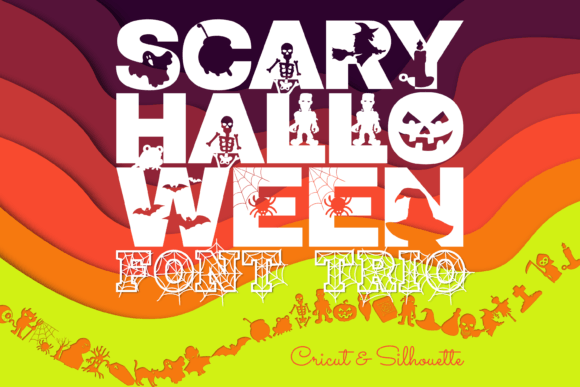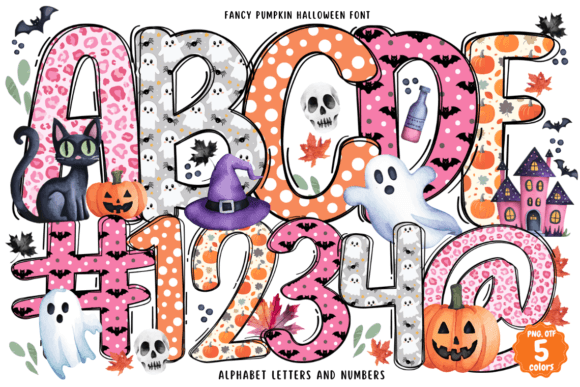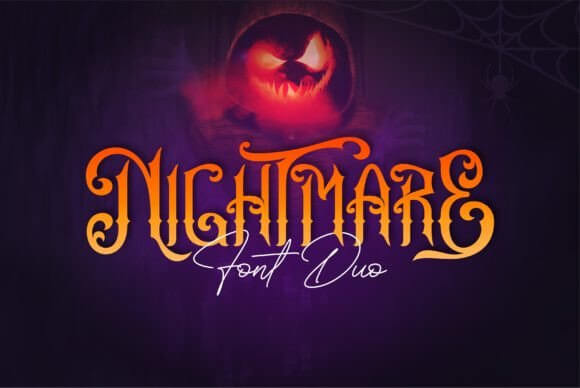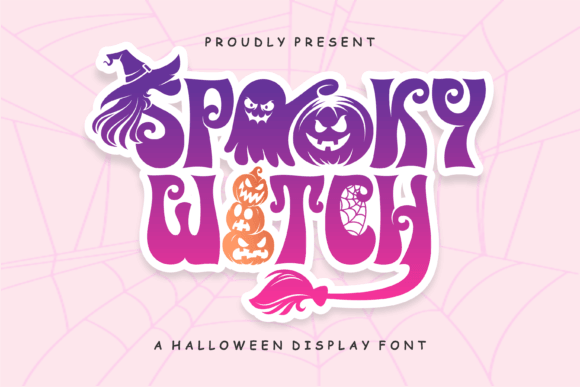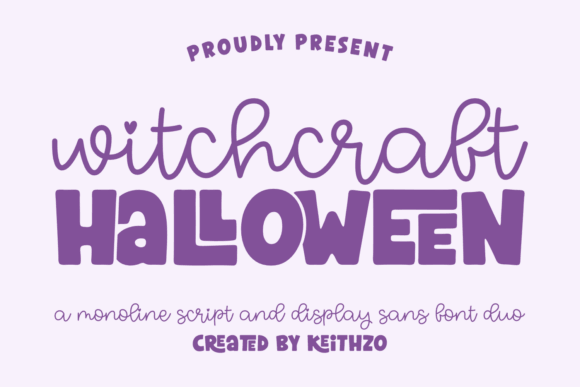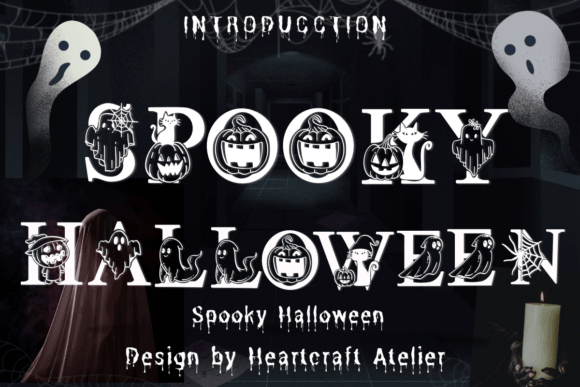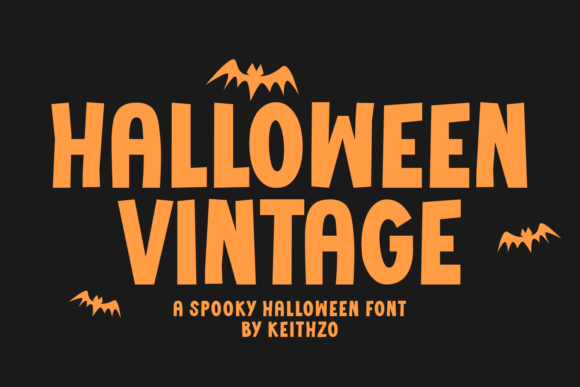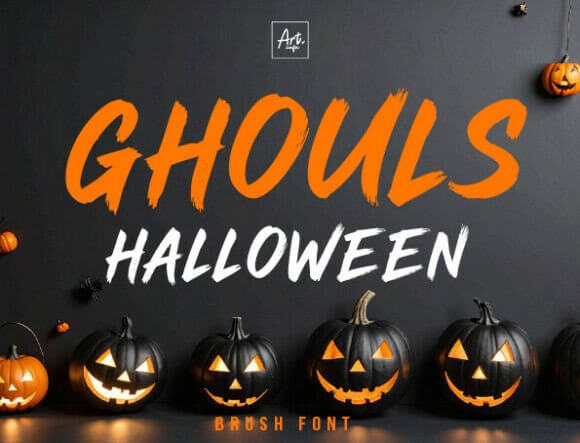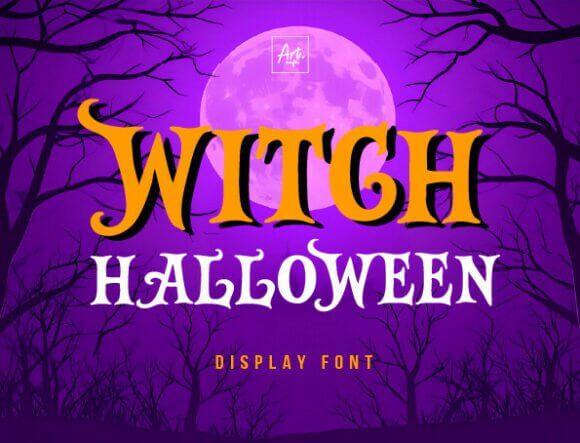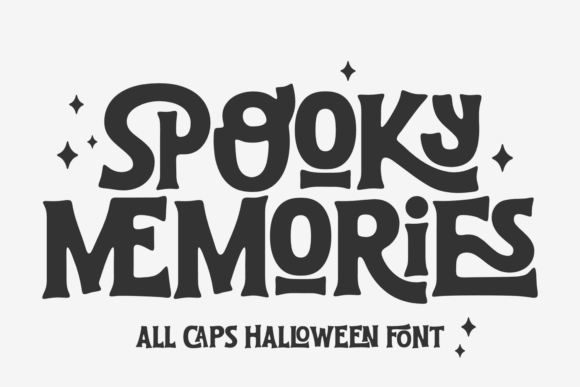
Picking halloween fonts sounds easy until every design starts looking like the same tired dripping headline. We pulled together 20 options that cover cute ghost lettering, rough vintage horror, witchy scripts, and bold display styles, because a pumpkin patch flyer should not carry the same mood as a haunted house poster. Good type changes the whole vibe fast. Faster than color tweaks, faster than clip art, and honestly with less fuss.
In this list, we point out where each font works best, from stickers and mugs to event branding, packaging, social graphics, and classroom printables. If you need halloween fonts alphabet ideas, spooky handwritten titles, retro horror typography, or halloween fonts free to test in craft projects, you’ll find a solid mix here. Some feel playful. Some feel cursed. That’s the fun part.
Scary Halloween Trio Display Fonts
Scary Halloween Trio gives you three coordinated looks, which is gold when one headline needs depth without turning into a design mess. We like it for Halloween poster design, merch drops, and loud promo graphics because it feels theatrical, sharp, and a bit unhinged in the best way.
Best Fits For This Font
- Haunted House Posters – Build huge titles that still read from a distance.
- Horror Merch Bundles – Add layered drama to tees, totes, and stickers.
- October Sale Headers – Make seasonal promos hit harder, fast.
- Costume Event Branding – Tie tickets, banners, and posts into one look.
Halloween Pumpkin Playful Lettering Font
This one leans sweet, round, and cheerful, so it fits projects that want autumn fun without full horror-movie chaos. For pumpkin patch branding, kid-friendly labels, or craft fair signs, it feels warm and readable . . . which matters more than people admit.
Great Projects For This Style
- Pumpkin Patch Logos – Create a friendly look that families trust.
- Fall Market Stickers – Add charm to jars, bags, and handmade goods.
- Kids Treat Bags – Keep the mood cute instead of creepy.
- Seasonal Mug Quotes – Work nicely on small curved surfaces.
Midnight Halloween Vintage Horror Font
Midnight Halloween brings that old-poster chill, the kind of type that feels pulled from a dusty theater wall at midnight. We’d use it for retro horror typography, moody packaging, or title cards that need atmosphere before the artwork even loads.
Where This Lettering Shines
- Retro Horror Covers – Push an old-film mood right away.
- Dark Candle Labels – Add mystery to boutique seasonal products.
- Gothic Wedding Menus – Give themed events a richer tone.
- Movie Night Graphics – Sell the vibe with minimal effort.
Halloween Font With Classic Spooky Curves
If you want classic spooky energy without weird gimmicks, this one keeps it simple and usable. It works for readable spooky headlines, which sounds boring until you’re fixing a poster at 11 p.m. and realize the pretty font turned your title into mush. This one doesn’t.
Smart Uses For This Pick
- Yard Sign Headlines – Stay bold outdoors and in quick glances.
- Classroom Door Decor – Feel festive without getting messy.
- Printable Banner Kits – Pair easily with bats, webs, and pumpkins.
- DIY Party Invitations – Keep text clear on home prints.
Halloween Ghost Cute Creepy Script Font
Halloween Ghost sits in that fun middle ground – spooky, but still soft enough for family-friendly designs. We think it nails cute ghost lettering for mugs, treat tags, bakery packaging, and kid tees where you want personality, not fake blood splatter all over everything.
Best Places To Use It
- Ghost Theme Stickers – Turn tiny designs into instant shelf-catchers.
- Treat Bag Tags – Add charm to simple packaging.
- Kid Friendly Tees – Keep the mood playful and light.
- Cute Bakery Packaging – Work well for cookies and seasonal sweets.
Halloween Bold Seasonal Display Font
This font goes big, thick, and direct. No whispering here. For Cricut Halloween signs, porch boards, booth banners, or pop-up displays, that blunt clarity helps a lot, and honestly, some projects just need a font that yells before the coffee kicks in.
Great Projects For This Style
- Front Porch Signs – Hold up well on larger wood blanks.
- Craft Fair Banners – Pull eyes toward your table.
- Vinyl Decal Sheets – Cut cleanly for home craft machines.
- Pop Up Booth Headers – Keep text visible in busy markets.
Halloween Witches Duo Layered Font Set
Paired fonts save time, full stop. Halloween Witches Duo gives you contrast without the headache of hunting down a second style that sort of matches, maybe. We like it for witchy font pairing across logos, event suites, and social graphics that need a polished but moody feel.
Where This Lettering Shines
- Witchy Boutique Logos – Build a stronger brand system with less effort.
- Spell Book Covers – Add layered depth to decorative titles.
- Matching Social Posts – Keep promos cohesive across formats.
- Event Suite Pairings – Work nicely on invites, menus, and signs.
Happy Halloween Festive Handwritten Font
Some halloween fonts try too hard to be terrifying. This one doesn’t, and that’s why it works. For friendly party lettering, teacher printables, photo booth signs, or simple seasonal posts, it feels upbeat, casual, and easy to drop into a design without a fight.
Smart Uses For This Pick
- Party Photo Backdrops – Keep event shots lively and readable.
- Teacher Worksheets – Add holiday fun without visual overload.
- Friendly Email Headers – Work for softer seasonal campaigns.
- Cocoa Bar Signs – Pair well with cozy fall decor.
Halloween Witch Magical Serif Display Font
Halloween Witch feels sharper and more mystical than playful, so it suits brands and events that want a moonlit edge. We’d pick it for mystical event branding, potion labels, tarot flyers, or anything that needs a touch of ritual instead of slapstick pumpkins.
Best Places To Use It
- Tarot Pop Up Flyers – Build mood before guests read the details.
- Potion Bottle Labels – Make small packaging feel richer.
- Moon Market Branding – Fit spiritual retail and vendor events.
- Mystic Podcast Art – Add personality to cover graphics.
Fancy Pumpkin Halloween Whimsical Font
Fancy Pumpkin Halloween goes decorative, a little extra, and that’s the point. If you’re working on boutique fall packaging, handmade products, or pretty seasonal signage, this style adds flair without drifting into messy novelty-font territory. Big win, honestly.
Best Fits For This Font
- Boutique Candle Boxes – Elevate small luxury products fast.
- Autumn Wedding Signs – Blend whimsy with a styled event look.
- Handmade Soap Sleeves – Add charm to artisan labels.
- Small Shop Banners – Help displays feel more curated.
Nightmare Dark Horror Title Font
Nightmare is darker, harsher, and way less cute than most halloween fonts on this list. Good. For horror title graphics, escape room promos, gaming overlays, or trailer art, it delivers that ugly-beautiful tension horror fans actually want. No fluff. Just menace.
Great Projects For This Style
- Slasher Poster Titles – Set the tone in one brutal line.
- Escape Room Branding – Add pressure and suspense to promo art.
- Gaming Stream Overlays – Make title cards hit harder on screen.
- Trailer Thumbnail Text – Grab attention in crowded feeds.
Spooky Witch Mystical Halloween Font
Spooky Witch balances decorative details with enough readability to stay practical, which we appreciate because some mystical fonts go completely off the rails. It works for magical merch design, journal covers, sticker packs, and apparel that wants charm with a little shadow.
Where This Lettering Shines
- Journaling Sticker Packs – Add witchy energy to planner products.
- Apparel Chest Prints – Keep details visible on smaller placements.
- Journal Cover Designs – Build a strong focal point quickly.
- Crystal Shop Promos – Fit mystical retail graphics with ease.
Witchcraft Halloween Decorative Font
Witchcraft Halloween feels niche in a good way. It doesn’t try to fit every project, and we respect that. Use it for occult product branding, tarot services, candles, wax seal cards, or alternative beauty packaging where a mainstream spooky font would feel way too safe.
Smart Uses For This Pick
- Occult Product Labels – Give niche goods a stronger identity.
- Tarot Reading Ads – Create a more distinctive promo style.
- Handmade Wax Seal Cards – Pair beautifully with textured papers.
- Alternative Beauty Branding – Add edge to dark feminine visuals.
Spooky Halloween Poster Ready Font
This one feels made for speed. Drop it into a layout, bump the size, and boom, your headline already carries enough attitude to sell the theme. For seasonal ad layouts, event flyers, window decals, or web banners, that kind of instant lift matters a lot.
Best Places To Use It
- Flash Sale Graphics – Push urgency without overworking the design.
- Haunted Tour Tickets – Keep details spooky but readable.
- Window Display Decals – Work nicely on storefront glass.
- Seasonal Web Banners – Add quick visual punch online.
Halloween Vintage Retro Horror Font
Halloween Vintage brings nostalgia instead of shock, which can feel fresher than gore after a while. We’d use it for old-school spooky style on shirts, themed menus, retro party invites, or blog graphics that want October flavor with a worn-in, familiar charm.
Best Fits For This Font
- Retro Diner Specials – Add throwback charm to seasonal menus.
- Nostalgic T Shirt Drops – Suit apparel with a vintage slant.
- Old Film Blog Headers – Pair well with grainy visual themes.
- Throwback Party Invites – Keep themed events fun and stylish.
Ghouls Halloween Creepy Display Font
Ghouls Halloween has a playful monster edge, less polished, more chaotic, and that scrappy energy can be perfect. For monster theme graphics, comic-style stickers, slime packaging, or game menus, it adds character fast and doesn’t pretend to be elegant. Good call.
Great Projects For This Style
- Monster Mash Flyers – Keep party graphics loud and lively.
- Kids Slime Packaging – Add goofy creepiness to product labels.
- Indie Game Menus – Fit playful horror worlds nicely.
- Comic Style Stickers – Make character packs feel bolder.
Hello Halloween Friendly Seasonal Font
Hello Halloween feels welcoming, soft, and easy to use on projects that don’t need teeth marks and grave dirt. We think it shines in cozy October printables, family events, greeting cards, planners, and shop announcements where a gentler seasonal look just makes more sense.
Where This Lettering Shines
- Family Event Posters – Keep local gatherings approachable and fun.
- Planner Cover Pages – Add a festive touch without clutter.
- Greeting Card Sets – Work well for warm seasonal messages.
- Cozy Shop Announcements – Fit cafes, boutiques, and home decor brands.
Witch Halloween Gothic Party Font
Witch Halloween leans darker and more formal, almost like it belongs at a candlelit party where everyone overdressed on purpose. For gothic party invitations, bar promos, dramatic menus, or moody reel covers, it gives you style without losing the Halloween hook.
Smart Uses For This Pick
- Masquerade Invite Suites – Add polish to upscale themed events.
- Dark Floral Menus – Pair beautifully with romantic gothic decor.
- Bar Event Signage – Make nightlife promos feel sharper.
- Dramatic Reel Covers – Help social posts stand out fast.
Spooky Memories Nostalgic Horror Font
Spooky Memories feels sentimental, almost scrapbook-like, which is rare in halloween fonts and honestly pretty refreshing. We’d use it for nostalgic Halloween scrapbooks, photo albums, gift tags, memory boxes, or family keepsakes that want a touch of eerie sweetness.
Best Places To Use It
- Scrapbook Title Pages – Frame October memories with personality.
- October Photo Albums – Add mood without overpowering pictures.
- Memory Box Labels – Turn storage into a styled detail.
- Sentimental Gift Tags – Fit handmade presents and keepsakes.
Halloween Parade Playful Event Font
Halloween Parade ends this list on a bright note. It feels festive, busy, and public-facing, which makes it a smart fit for community event posters, treat trails, vendor signs, and costume contests where the mood should feel fun first and spooky second.
Great Projects For This Style
- Community Parade Posters – Help local events feel organized and lively.
- Treat Trail Maps – Keep wayfinding cheerful and clear.
- Vendor Booth Signs – Add seasonal flair to market setups.
- Costume Contest Graphics – Work well for bold public promotions.
The best halloween fonts do one thing first – they set the mood before a single photo, bat, or pumpkin hits the layout. Cute, eerie, vintage, loud, mystical . . . each pick here brings a different kind of October energy. Test the one that matches your project, trust your eye, and don’t force a sweet font into a scary job. That never ends well.